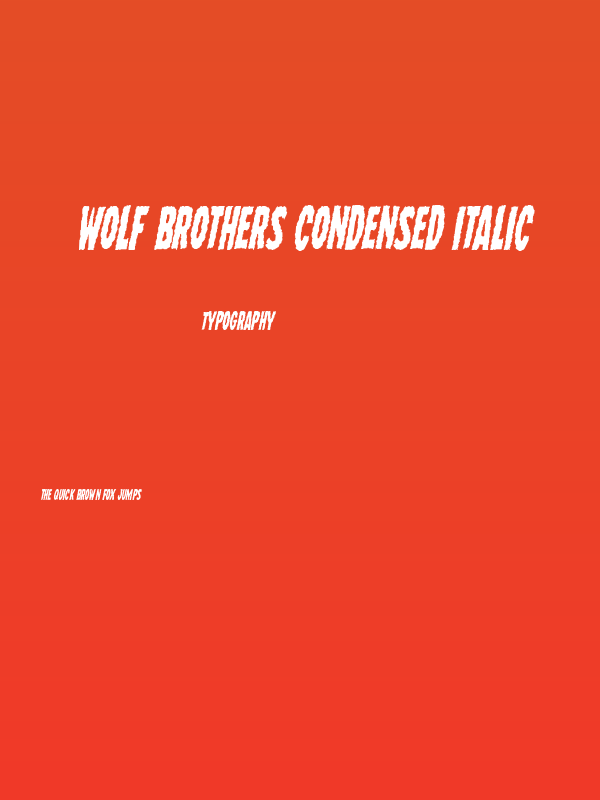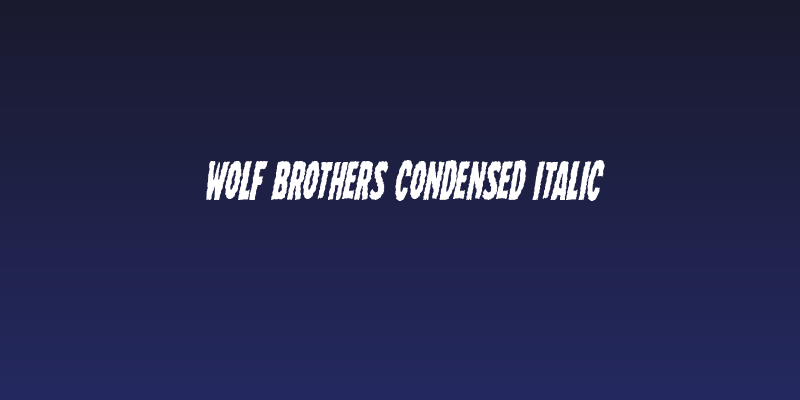
Wolf Brothers Condensed Italic Font
Wolf Brothers Condensed Italic Description
This font features a bold and dynamic style with a condensed and italicized form. The characters are tightly spaced, creating a sense of urgency and movement. The strokes are thick and slightly rough, giving it a rugged and edgy appearance. The uppercase and lowercase letters maintain a consistent slant, enhancing the italic effect. The numbers and special characters follow the same stylistic approach, ensuring uniformity across all elements. This font is ideal for projects that require a strong visual impact, such as posters, headlines, and branding materials.
| Overall Style | Dynamic and Edgy |
| Use Case | Headlines, Posters, Branding |
| Proposed Projects | Ideal for posters, headlines, branding, and any design needing a strong visual impact. |